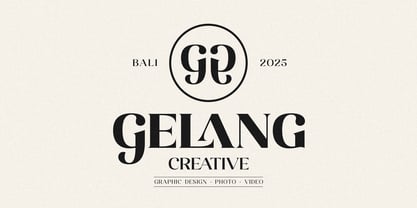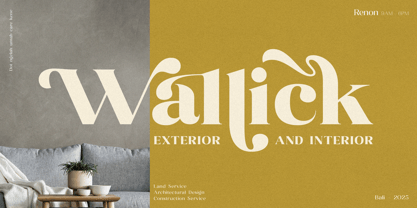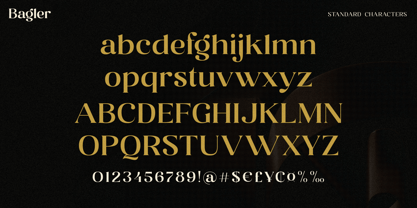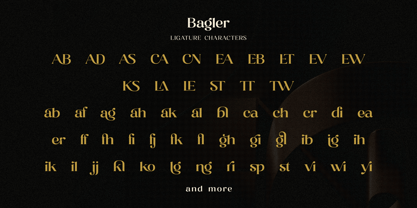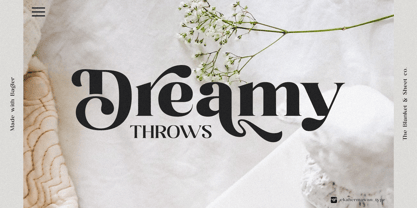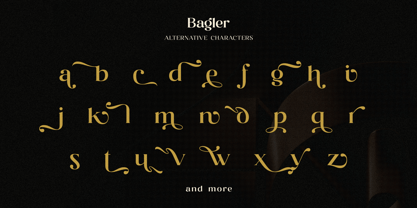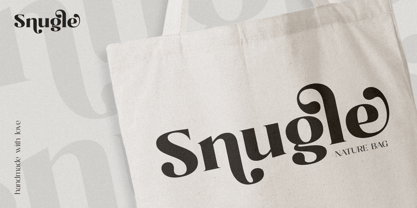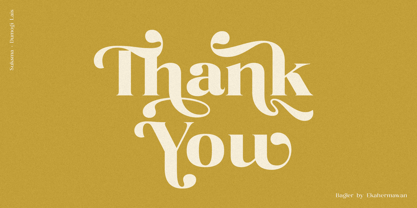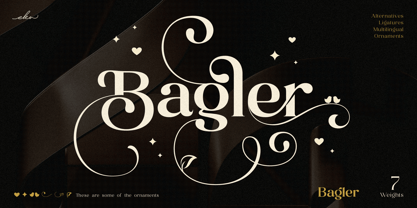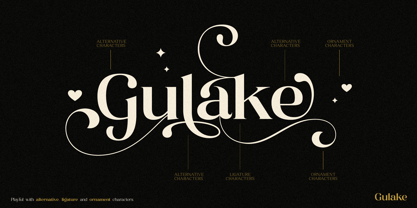
Bagler
by Ekahermawan
The Bagler Font Family was designed by Putu Eka Hermawan and published by Ekahermawan. Bagler contains 8 styles and family package options. More about this family
Introducing Bagler – an elegant serif display font designed to make your projects stand out. With 7 distinct weights, Bagler offers unmatched versatility, giving you a wide range to create everything eye-catching. But that's not all—Bagler is packed with alternative characters, ligatures, and stunning ornament characters, perfect for adding a touch of sophistication and personality to your designs. Whether you’re working on branding, packaging, posters, or any other creative projects, these unique features allow you to craft truly custom typography. Plus, Bagler supports multilingual characters, ensuring your designs can reach global audiences without compromising style. Transform your next project with Bagler—a font that’s as flexible as it is striking!
Designers: Putu Eka Hermawan
Foundry: Ekahermawan